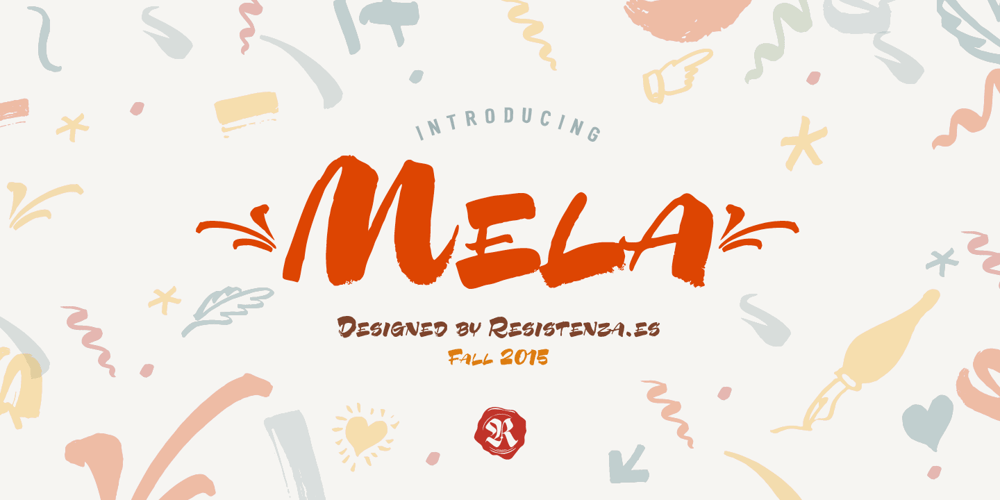
Mela Font Family was designed by Giuseppe Salerno, Paco González and published by Resistenza. Mela contains 2 styles and family package options. Mela Font: A Fusion of Urban Graffiti and Stylish CalligraphyMela font is the embodiment of a creative fusion, born from the strokes of a pointed brush dipped in walnut ink. Conceived originally as a nod to urban graffiti culture, Mela evolved into something more refined and sophisticated, blending the raw energy of thick brushstrokes with an unexpected elegance.Crafted with a bold yet delicate touch, Mela font strikes a unique balance between lightness and boldness. Its letters bear the imprint of a slightly slanted angle, marked by sharp, deliberate strokes that mimic the characteristics of a fat-tipped marker. This handmade typeface exudes a sense of spontaneity and urban flair, while simultaneously embracing the timeless beauty of calligraphic forms.The distinct contrast within Mela font allows it to seamlessly marry the fluidity of calligraphic shapes with the contemporary edge of urban aesthetics. Its presence evokes a carefree, modern sensibility, adding a fresh and vibrant dimension to any design project. Whether used in magazines, packaging, advertising, branding, posters, editorials, or digital media, Mela font infuses a touch of human warmth and authenticity into every composition.One of the standout features of Mela Pro is its extensive character set, boasting 473 glyphs that include alternates, ligatures, icons, ornaments, and more. This versatility opens up a world of possibilities for customization, allowing designers to tailor Mela to their specific creative vision. Meanwhile, Mela Regular offers a more streamlined selection, focusing primarily on letters, figures, and punctuation.Ideal for headlines and short texts, Mela font effortlessly commands attention and adds a distinct personality to any project. Its adaptability makes it suitable for a wide range of applications, from traditional print media to digital platforms, including magazines, packaging, advertising, branding, posters, editorials, TV, movies, and websites.In essence, Mela font is more than just a typeface—it’s a versatile tool that empowers designers to infuse their work with the unmistakable charm and warmth of beautifully handwritten letters. With its seamless blend of urban edge and refined elegance, Mela font invites creativity to flourish and imagination to soar.More About Opentype Features: https://bit.ly/opentype-rsz